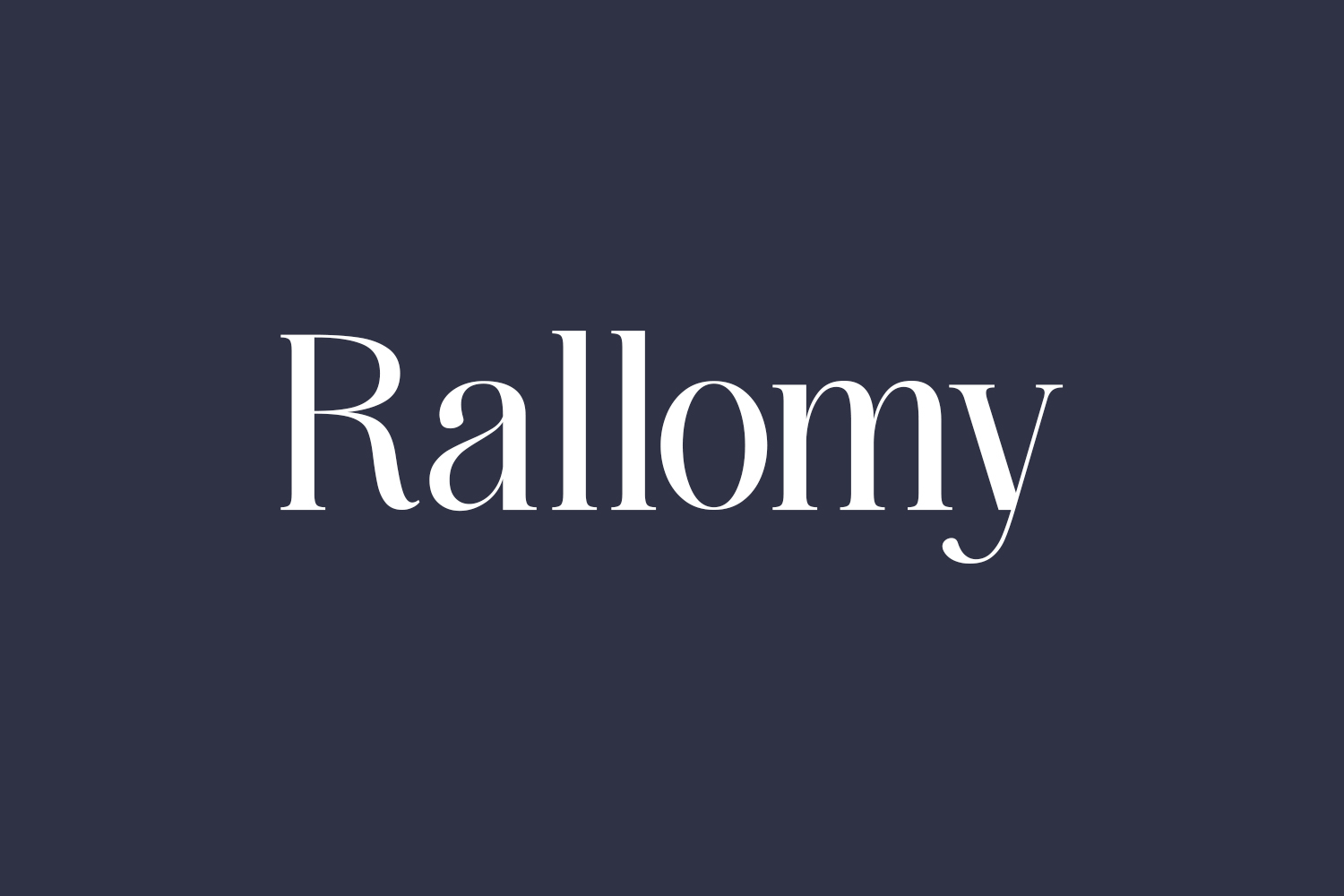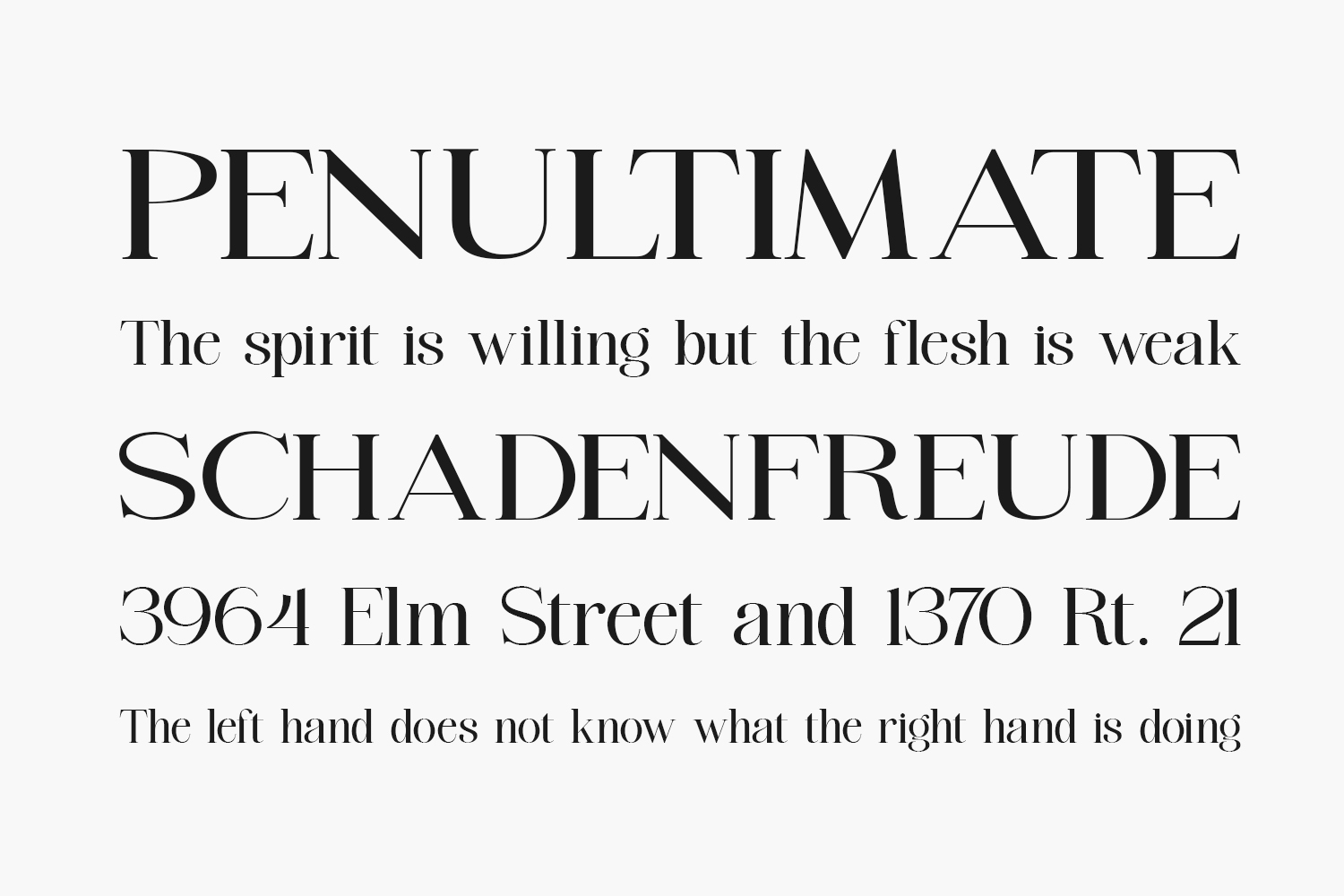
Meet Rallomy Free Font, a serif font meticulously crafted to embody the splendor of nature. With its dynamic alternating swashes adorned with leaf symbols and a seamless ligature system, it guarantees a harmonious blend of characters. Perfect for design endeavors seeking to encapsulate the essence of the natural world. Download the font for free if you need it for personal use or purchase the full version for commercial use.